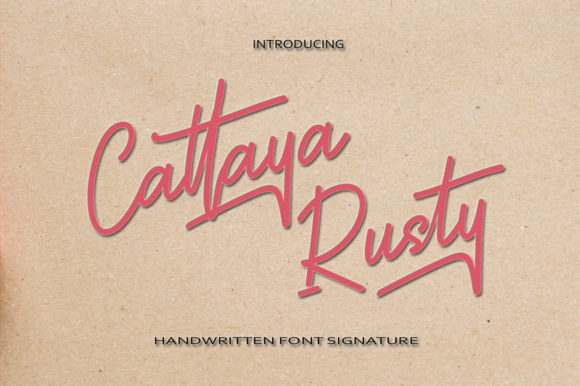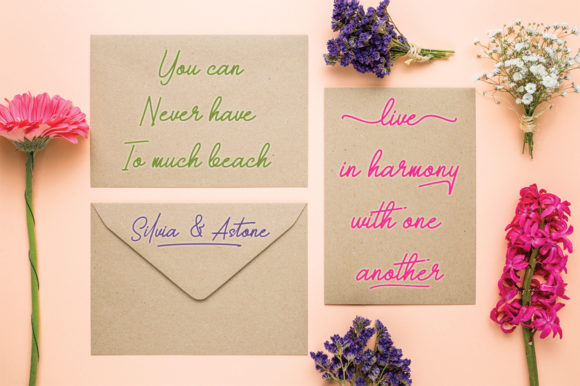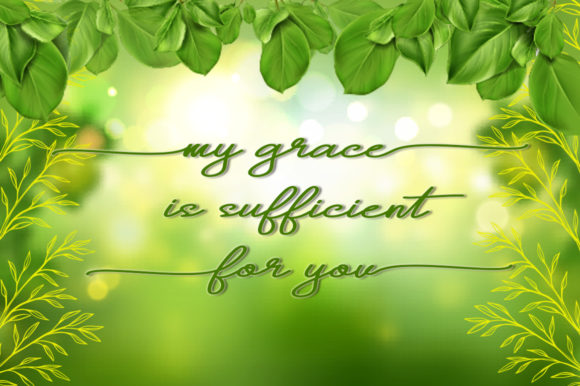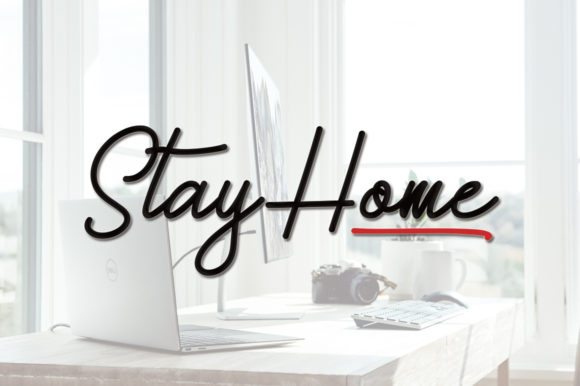
Cattaya Rusty Font
About Cattaya Rusty Font
Cattaya Rusty is a breathtakingly beautiful and sophisticated handwritten font that exudes elegance and charm. Meticulously crafted to perfection, this font has all the qualities to become your go-to favorite for a wide range of design projects. With its PUA encoding, accessing the diverse glyphs and swashes is a breeze, allowing you to explore countless creative possibilities effortlessly.
The allure of Cattaya Rusty lies in its flawless execution, evident in its varying baseline that adds a touch of dynamism and fluidity to the characters. The smooth lines gracefully flow, giving the font a sense of grace and poise, making it the perfect choice for any project that requires a touch of sophistication.
The abundance of gorgeous glyphs and stunning alternates in Cattaya Rusty gives you the freedom to experiment and customize your designs. Whether you’re creating wedding invitations, branding materials, book covers, or any other project that demands a personal and distinctive touch, Cattaya Rusty has you covered with its array of enchanting characters.
Wedding invitations become an affair to remember with Cattaya Rusty’s elegant calligraphy that sets the tone for a romantic and timeless celebration. The font’s captivating beauty adds a touch of luxury and refinement to the invitations, making them a cherished keepsake for the couple and their guests.
For branding and logos, Cattaya Rusty elevates your identity with its refined and artistic letterforms. The font exudes a sense of exclusivity and high-quality craftsmanship, ensuring that your brand stands out from the competition and leaves a lasting impression on clients and customers.
Book covers and editorial designs gain a touch of allure and sophistication with Cattaya Rusty’s flowing script. Whether it’s a captivating title or a charming quote, the font effortlessly enhances the visual appeal of the text, inviting readers to dive into the world of the written word.
The versatility of Cattaya Rusty extends to social media graphics and promotional materials. Its exquisite style lends a touch of elegance to your online presence, making your content more captivating and share-worthy across various platforms.
In conclusion, Cattaya Rusty is a true masterpiece of a handwritten font, meticulously designed to elevate your projects to the highest levels of sophistication and elegance. Its PUA encoding allows for seamless access to a diverse set of glyphs and swashes, granting you the creative freedom to craft captivating and distinct designs. Whether it’s wedding invitations, branding, editorial layouts, or social media graphics, Cattaya Rusty’s exquisite charm will leave you and your audience falling in love with every stroke of its elegant letterforms. Embrace the allure of Cattaya Rusty and let it grace your projects with its enchanting and timeless beauty.